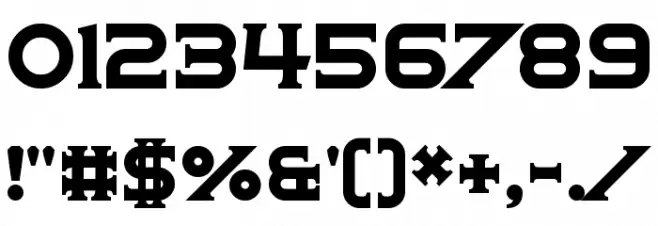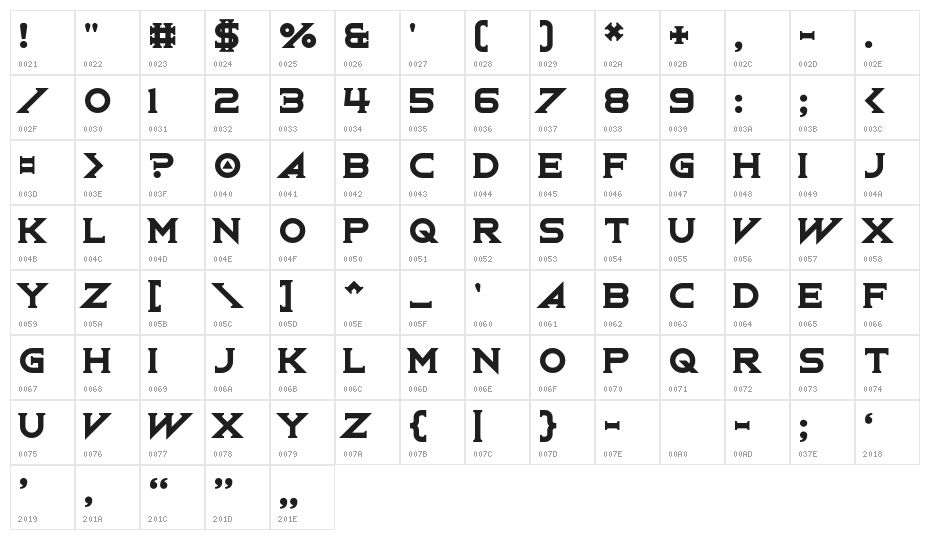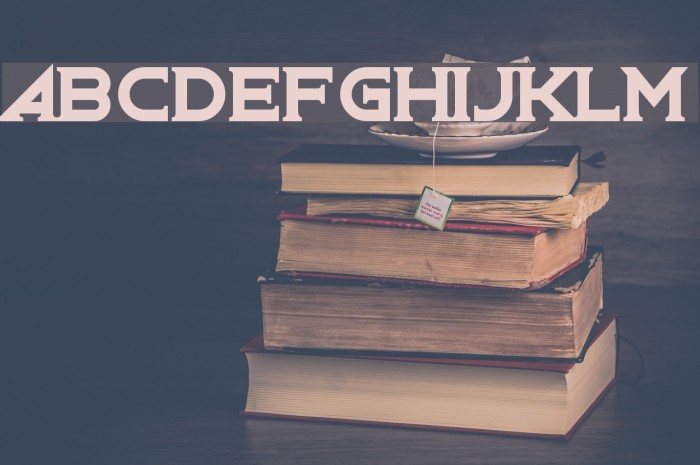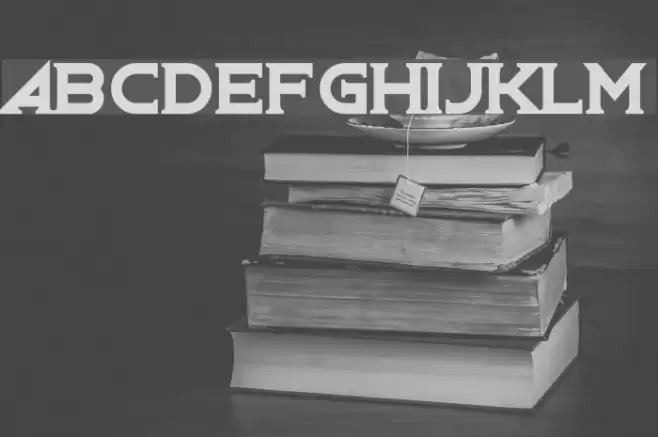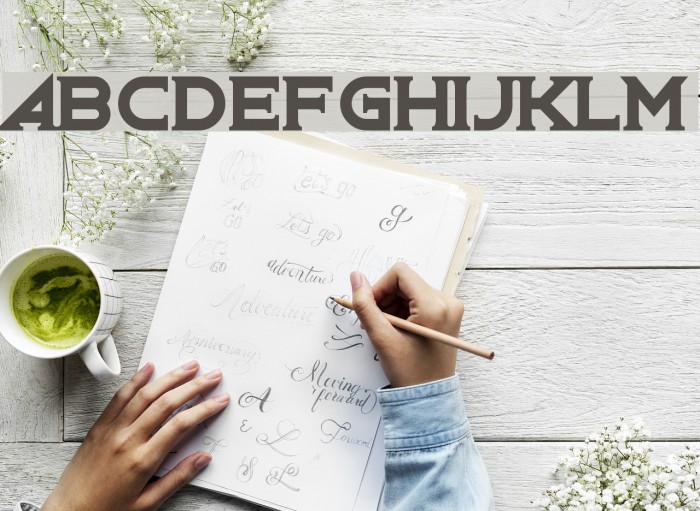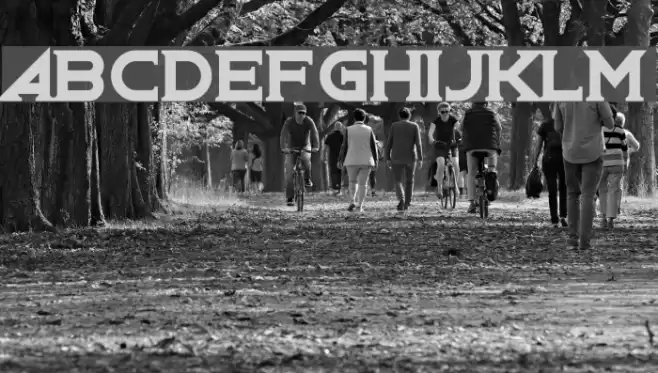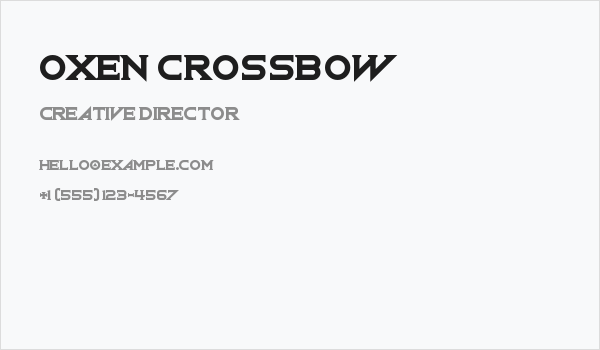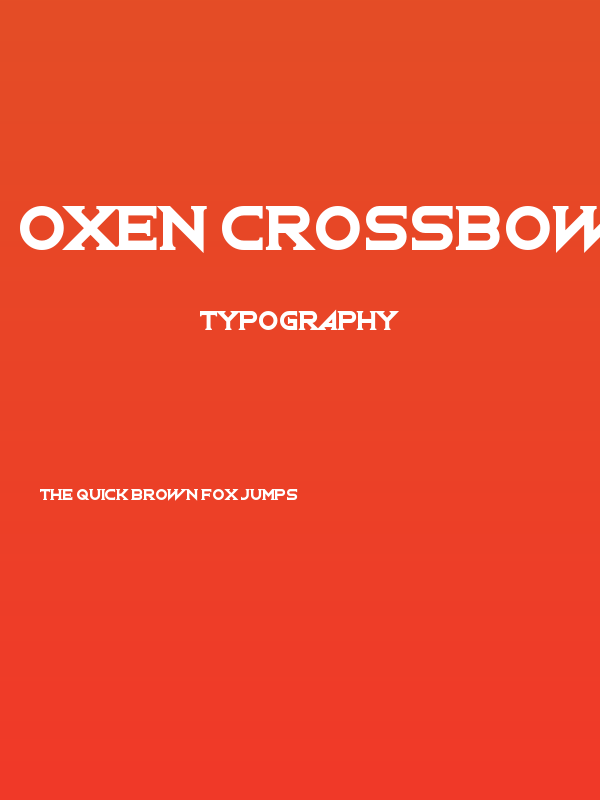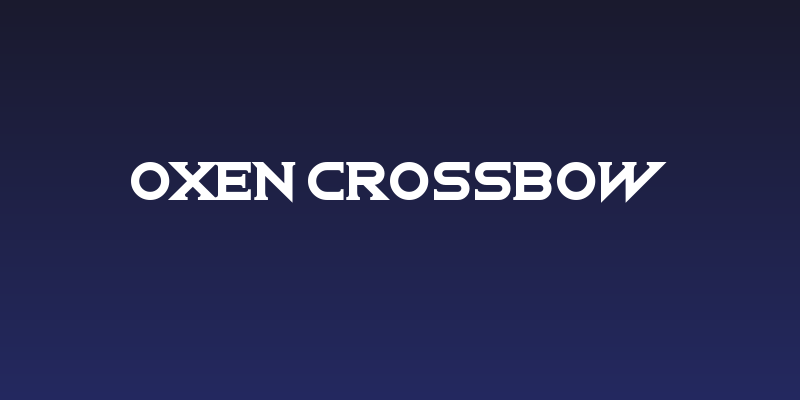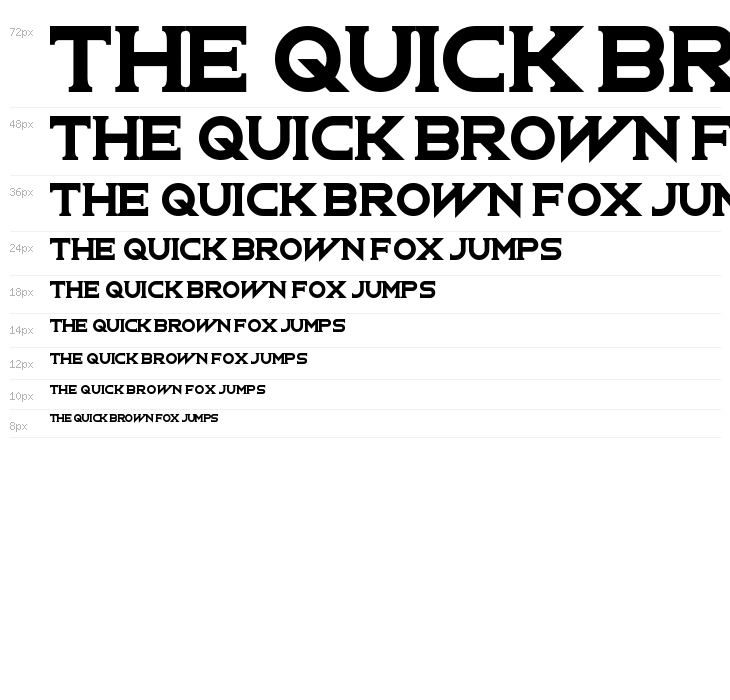
Oxen Crossbow Font
Oxen Crossbow Description
This font features a bold and dynamic design with sharp, angular edges and a strong geometric structure. The uppercase letters are particularly striking, with a distinctive slant and pointed serifs that give them a sense of motion and energy. The numerals and special characters maintain this bold style, ensuring consistency across all glyphs. The font's overall appearance is modern and assertive, making it suitable for attention-grabbing headlines and impactful designs. Its unique style is both eye-catching and memorable, ideal for projects that require a strong visual presence.
| Proposed Projects | Ideal for branding, advertising, posters, and any design requiring a strong, impactful typeface. |